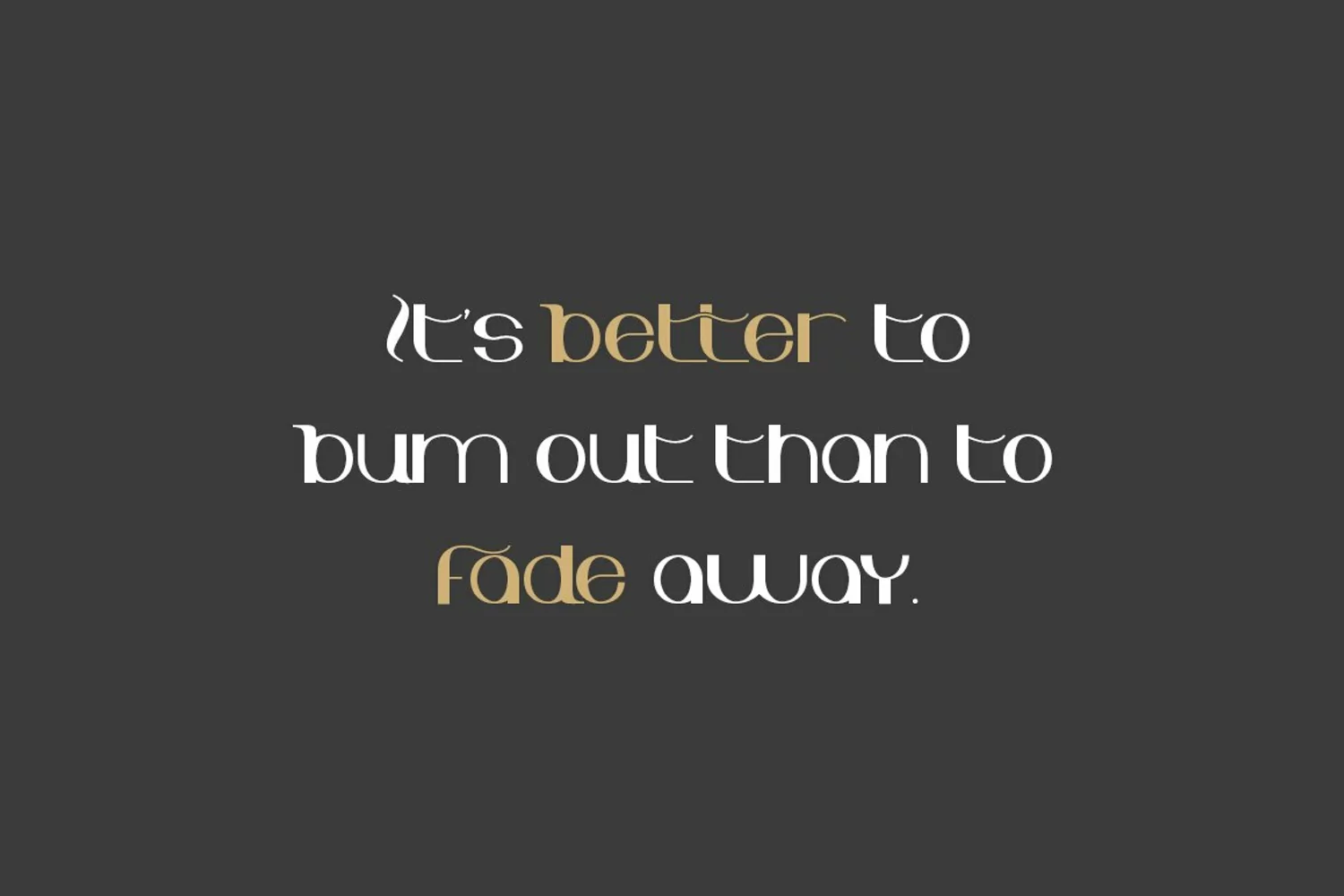
**Mobbly Vatter** - a new fresh handmade calligraphy font.
--- Very suitable for greeting cards, branding materials, business cards, quotes, posters, and more!This font are perfect for wedding postcard. Or you can create perfect and unique design of your logo, blog, stationery, marketing, magazines and more :)